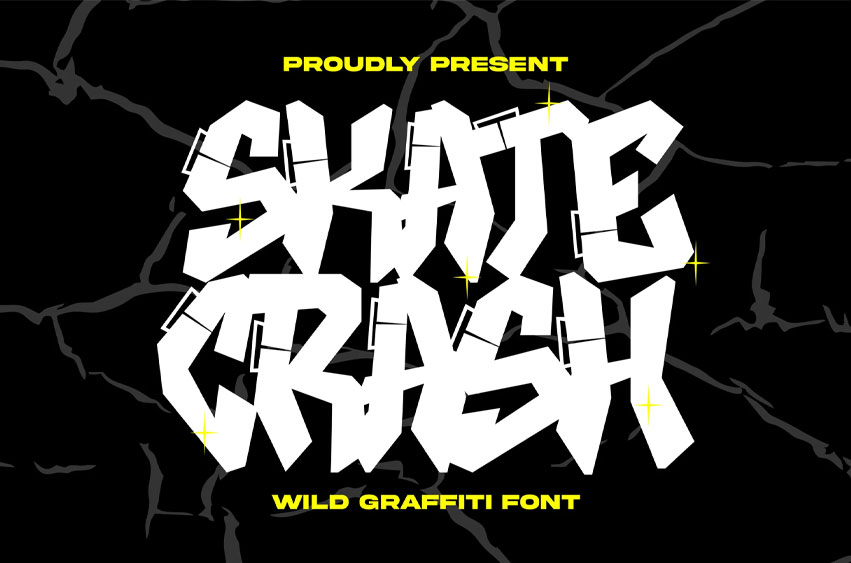
Skate Crash Font is a rebellious, wild graffiti font that captures the chaos and energy of the underground scene. With Uppercase and Lowercase characters, it delivers expressive versatility—perfect for making noisy headlines, rough visuals, or bold digital statements.
Inspired by skate culture, back-alley tags, and raw expression, Skate Crash fuses messy brush details with street art characters. It’s fully equipped with multilingual support, so your message crosses borders just like the art that inspired it.
Whether you’re designing album artwork, event posters, murals, or experimental collages, Skate Crash screams with attitude and authenticity.
- Uppercase & Lowercase Characters
- Wild, expressive graffiti brush style
- Multilingual support (Latin-based characters)
- Great for posters, album covers, zines, digital art, and more
- High-impact, handcrafted details
Why Designers Love It: Designers love Skate Crash for its wild texture and untamed personality. It’s perfect when a clean font just won’t cut it. The imperfect strokes bring realness, movement, and a punch of urban soul to every layout. With both cases available, it allows for visual variety while keeping the energy raw and untamed.
Your Design Deserves a Collision. Skate Crash isn’t just a font—it’s a visual explosion. It’s the scream in a silent feed, the mess in a polished world. If you’re ready to ditch boring typography and embrace chaos, Skate Crash is your ride. Let your message grind, crash, and leave a mark.